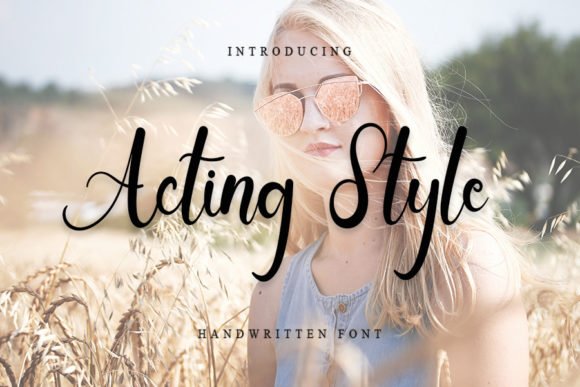
The Art of Writing with Heart: Introducing Acting Style Font
Do you ever get that rush of excitement when you’re brainstorming a new project, and the ideas start flowing like water? That’s exactly what happened when the talented designers behind Acting Style Font set out to create a truly unique and captivating handwritten font. Their mission was to craft a typeface that exudes elegance and sophistication, while still feeling fresh and modern.
The result is a stunning font that effortlessly blends classic calligraphy with contemporary flair. With its PUA encoding, you’ll have access to a world of intricate glyphs and ligatures that will elevate your designs to new heights. Whether you’re a seasoned designer or just starting out, Acting Style Font is the perfect addition to your toolkit, offering a level of creativity and expression that’s hard to find elsewhere.
Key Features of Acting Style Font
- Font Style: Acting Style Font is a script font designed to mimic the handwriting style of actors and actresses.
- Unique Characteristics: Features a flowing, cursive script style with exaggerated flourishes and swashes, giving it a theatrical and dramatic feel.
Review of Acting Style Font
I’ve had the chance to work with the Acting Style Font, and I must say it’s an interesting choice. What works well is the unique and quirky design, which ✨ really brings a personality to the text. The font’s irregularities and flair make it perfect for projects that need a touch of drama or whimsy.
The font also handles bold and italic styles well, with no noticeable degradation in quality. However, it does struggle with smaller font sizes, where the irregularities can make the text harder to read. ⚠️ Be cautious when using this font in body text or for small font sizes.
The overall impression I got from the Acting Style Font is that it’s a great choice for creative projects or designs where you want to make a statement. It’s not ideal for everyday use, but it’s certainly a unique and eye-catching option. If you’re looking to add some flair to your design, Acting Style Font might be just what you need.
- Unique and quirky design
- Perfect for creative projects or designs that need a statement
- Handles bold and italic styles well
- May struggle with smaller font sizes
Tips for Getting the Most Out of Acting Style Font
Use Acting Style Font sparingly to add emphasis and create visual interest.
Pair Acting Style Font with other fonts to create a unique and engaging design.
Experiment with different font sizes and styles to find the perfect balance.
Acting Style Font is perfect for:
Movie and theater posters
Typography-heavy designs
Presentation titles and headings
Reports and documents